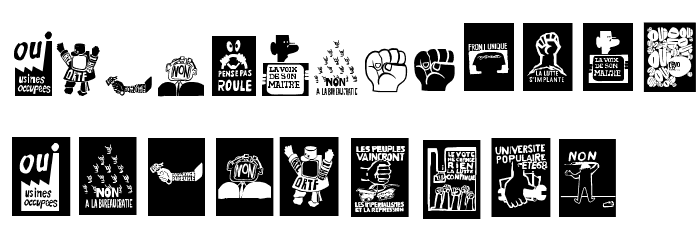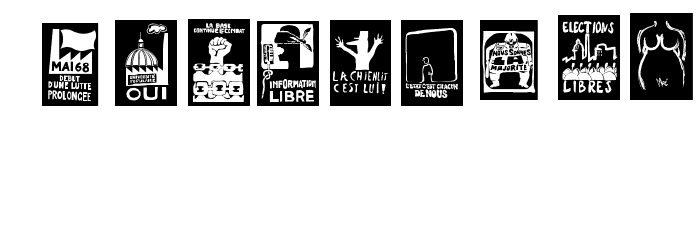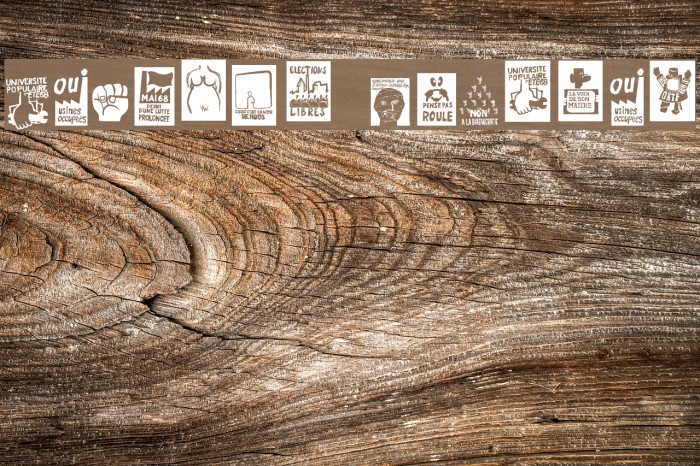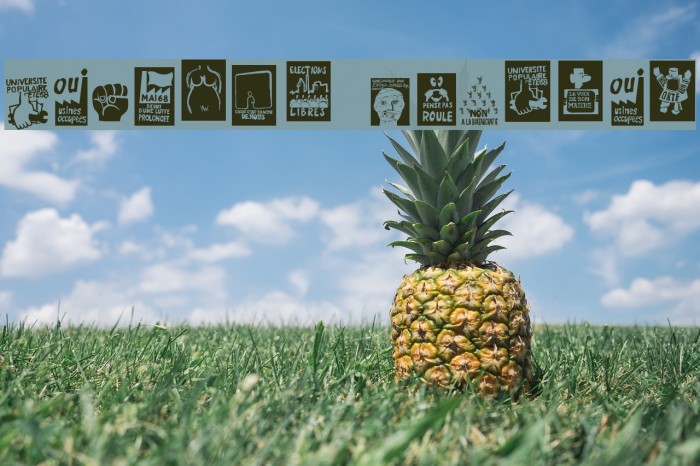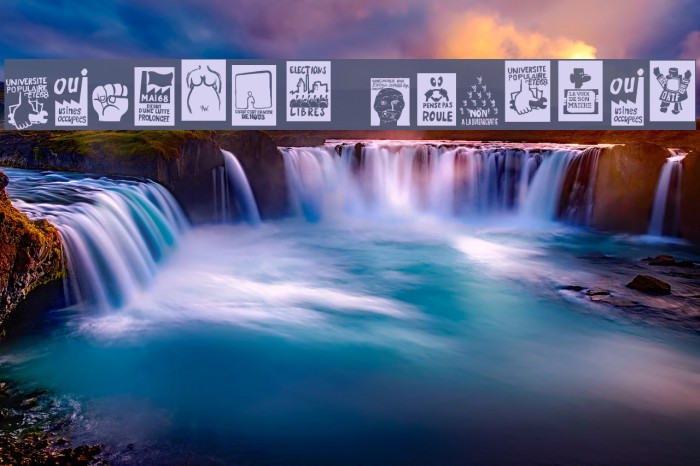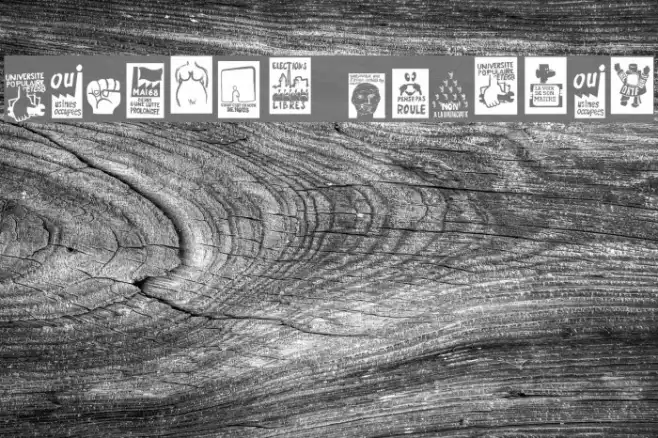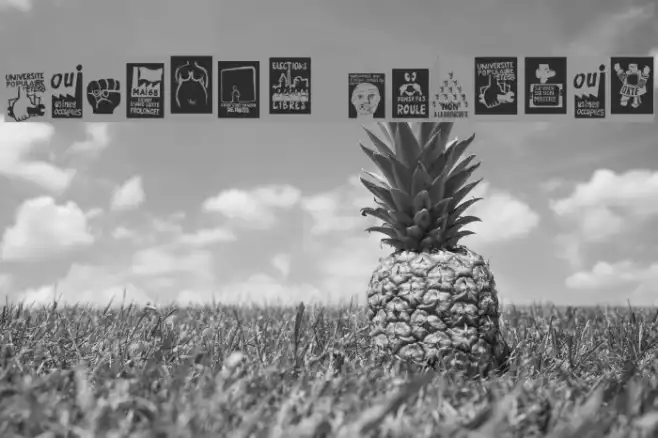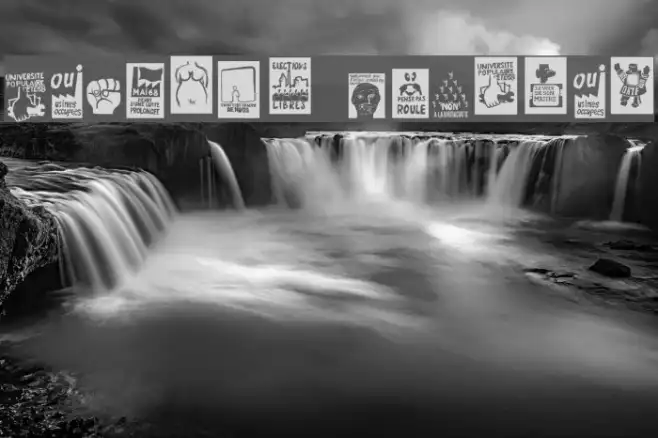
Mai1968 Regular Font
This image does not depict a traditional font set but rather a collection of graphic posters with bold, expressive typography and imagery. The style is reminiscent of protest art, with strong, impactful lettering that varies in size and shape to convey urgency and emotion. The text is integrated with illustrations, creating a cohesive visual message. The overall aesthetic is raw and dynamic, capturing the spirit of activism and social commentary. The use of high contrast black and white enhances the boldness and visibility of the messages.
A collection of protest posters with bold, expressive typography and imagery.
- Font: Mai1968 Regular
- Proposed Projects: Ideal for projects related to social activism, protest movements, or historical retrospectives on political art.
- Character Spacing: Varied, depending on the poster design.
- Overall Style: Vintage, Activist
- Use Case: Posters, Campaigns, Art Exhibitions